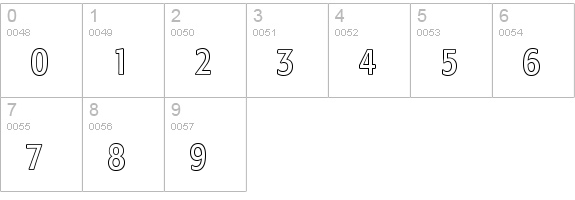
Formata Condensed BQ Outline Font Details
Formata Condensed BQ Outline is a distinctive, condensed-width variant in the Formata typeface family \xE2\x80\x94 well suited to design and typography projects.
Formata Condensed BQ Outline font is a sleek and modern typeface that exudes elegance and sophistication. With its clean lines and bold outline design, this font is perfect for making a statement in your designs. Whether you're creating posters, logos, or branding materials, Formata Condensed BQ Outline font will add a touch of class to your projects. What's even better is that Formata Condensed BQ Outline font is available for free download at FontsMarket.com. This means you can easily access this premium font without having to break the bank. Don't miss out on the opportunity to elevate your designs with the timeless appeal of Formata Condensed BQ Outline font. Download it now and start creating stunning visuals that will leave a lasting impression.